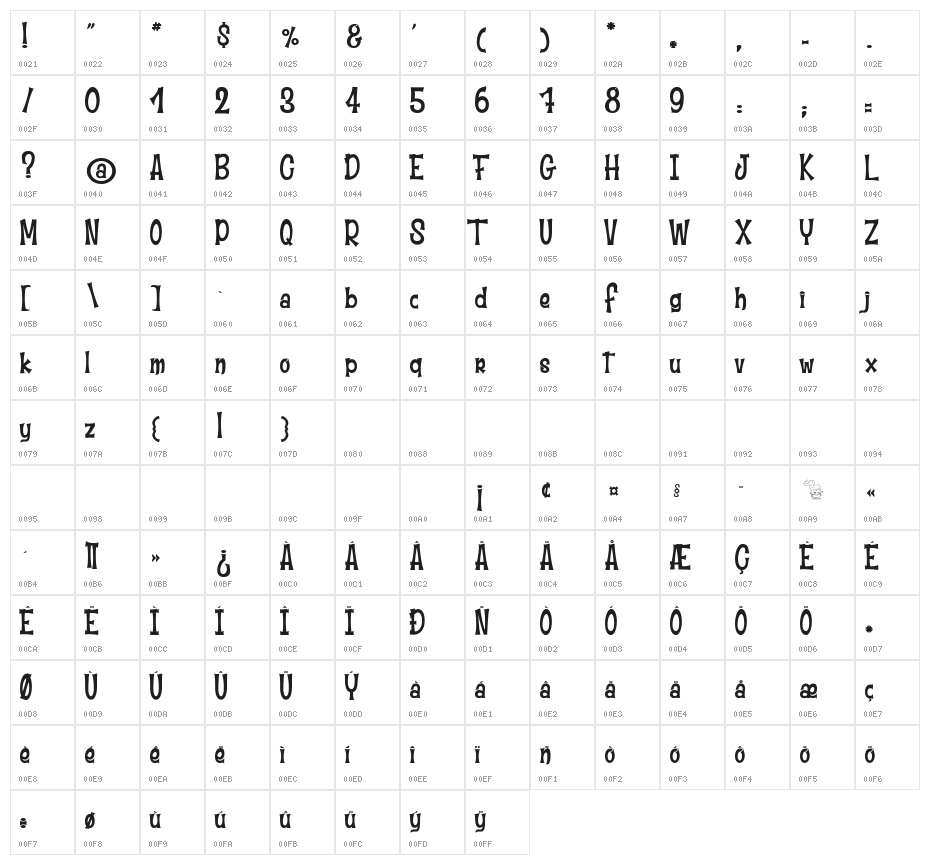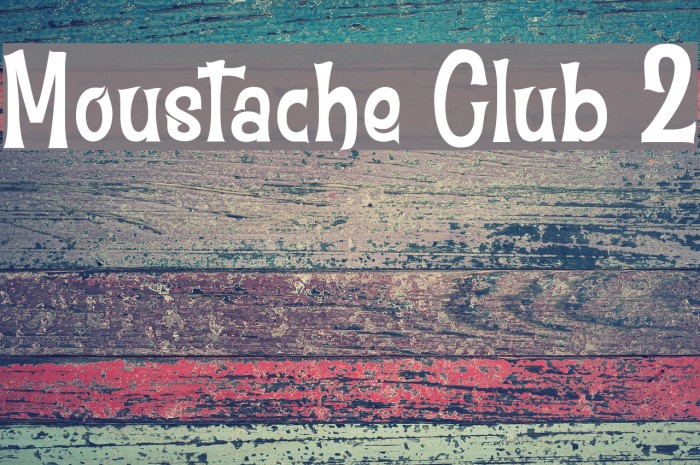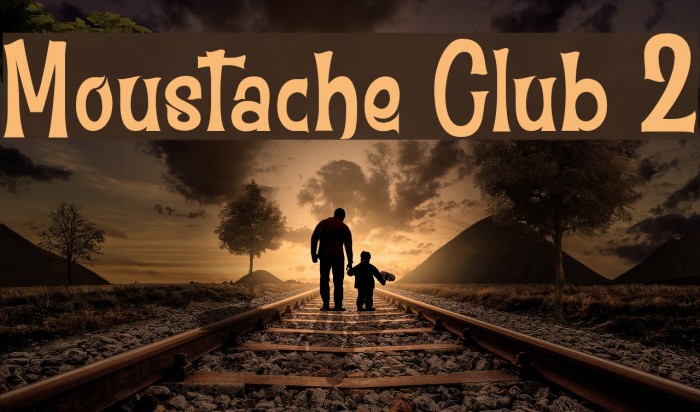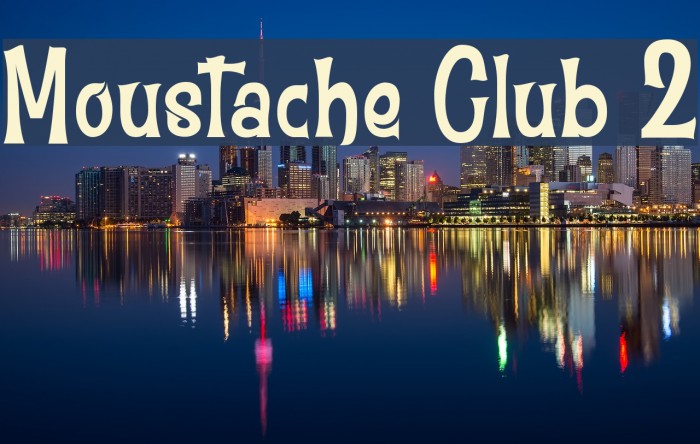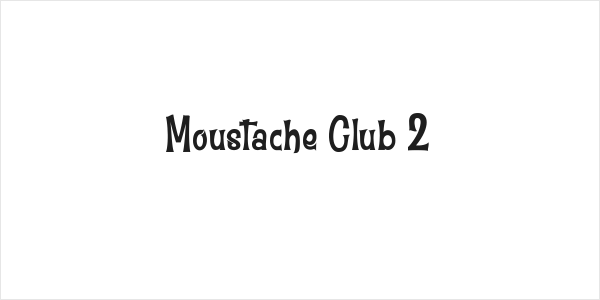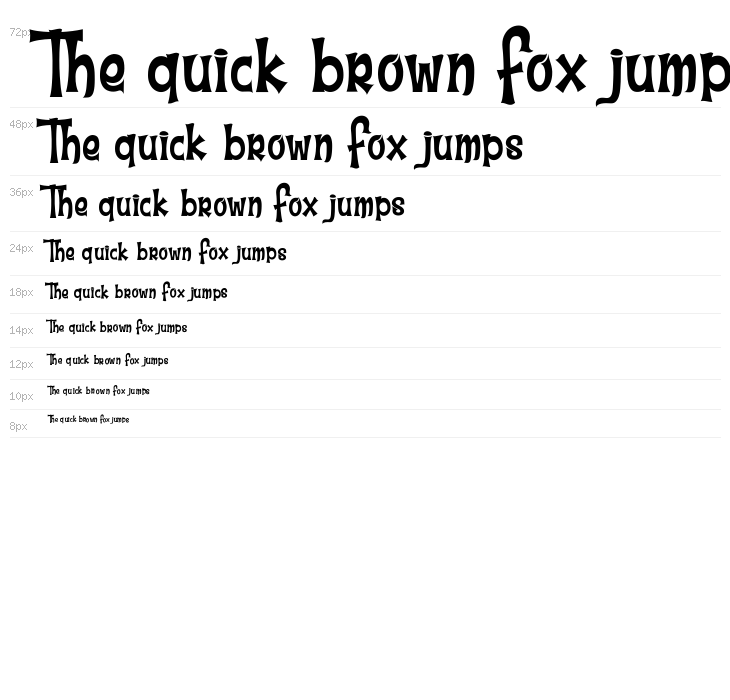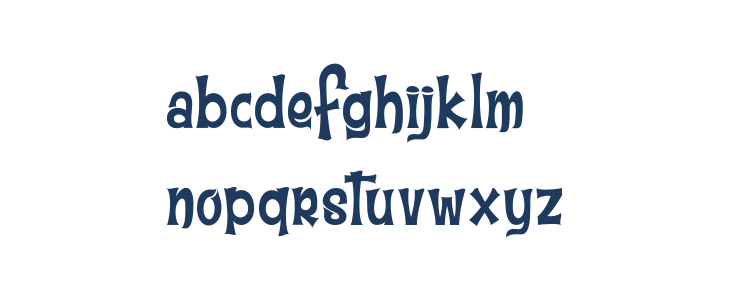
Moustache Club 2 Font
Moustache Club 2 Description
This font features a playful and whimsical design, characterized by its exaggerated curves and unique, quirky letterforms. The uppercase letters are bold and dynamic, with a slight slant that adds a sense of movement. The lowercase letters maintain the same playful style, with rounded edges and a consistent stroke width. Numbers are equally bold, ensuring readability while maintaining the font's distinctive style. Special characters are creatively designed, fitting seamlessly with the overall aesthetic. This font's unique personality makes it ideal for projects that require a touch of fun and creativity.